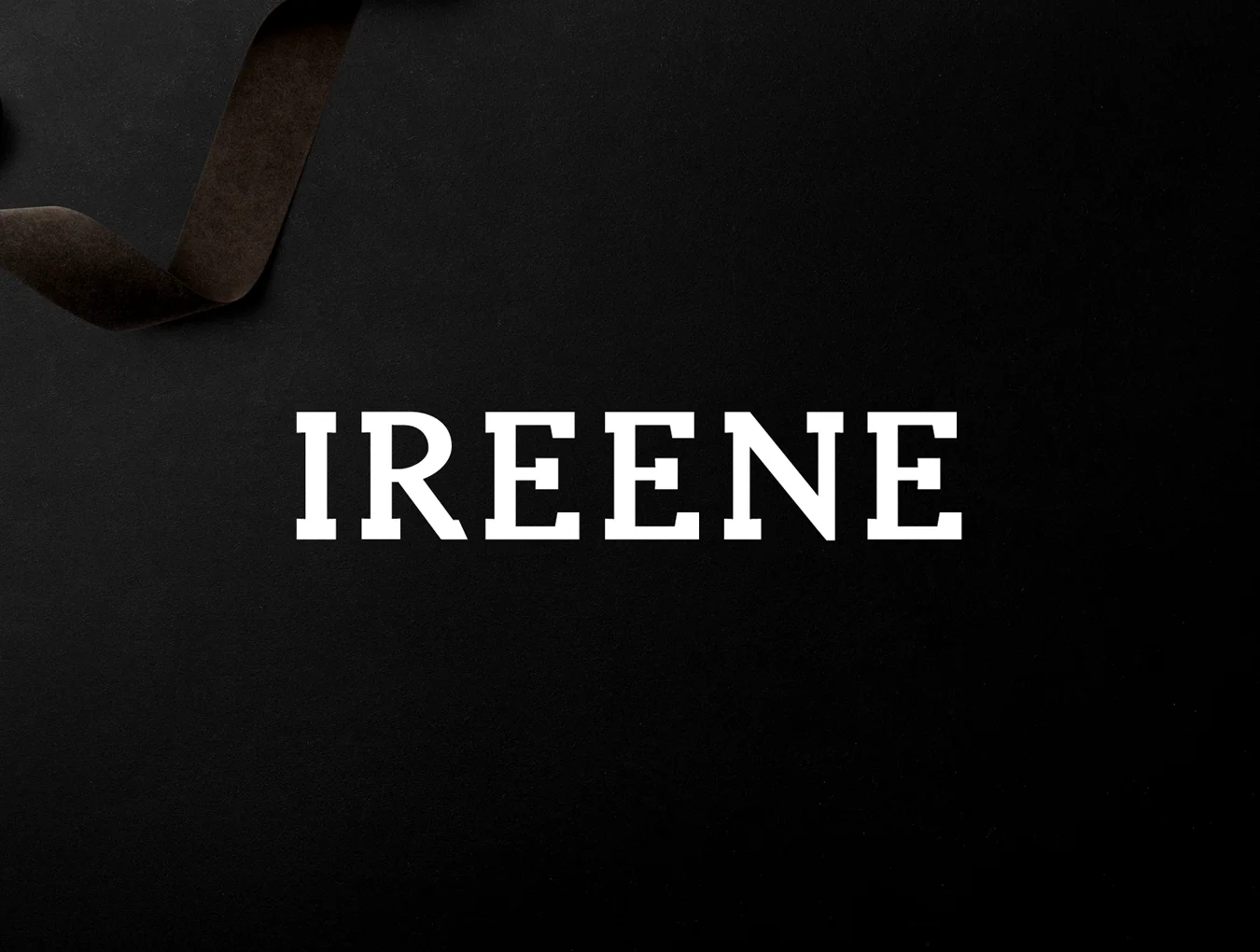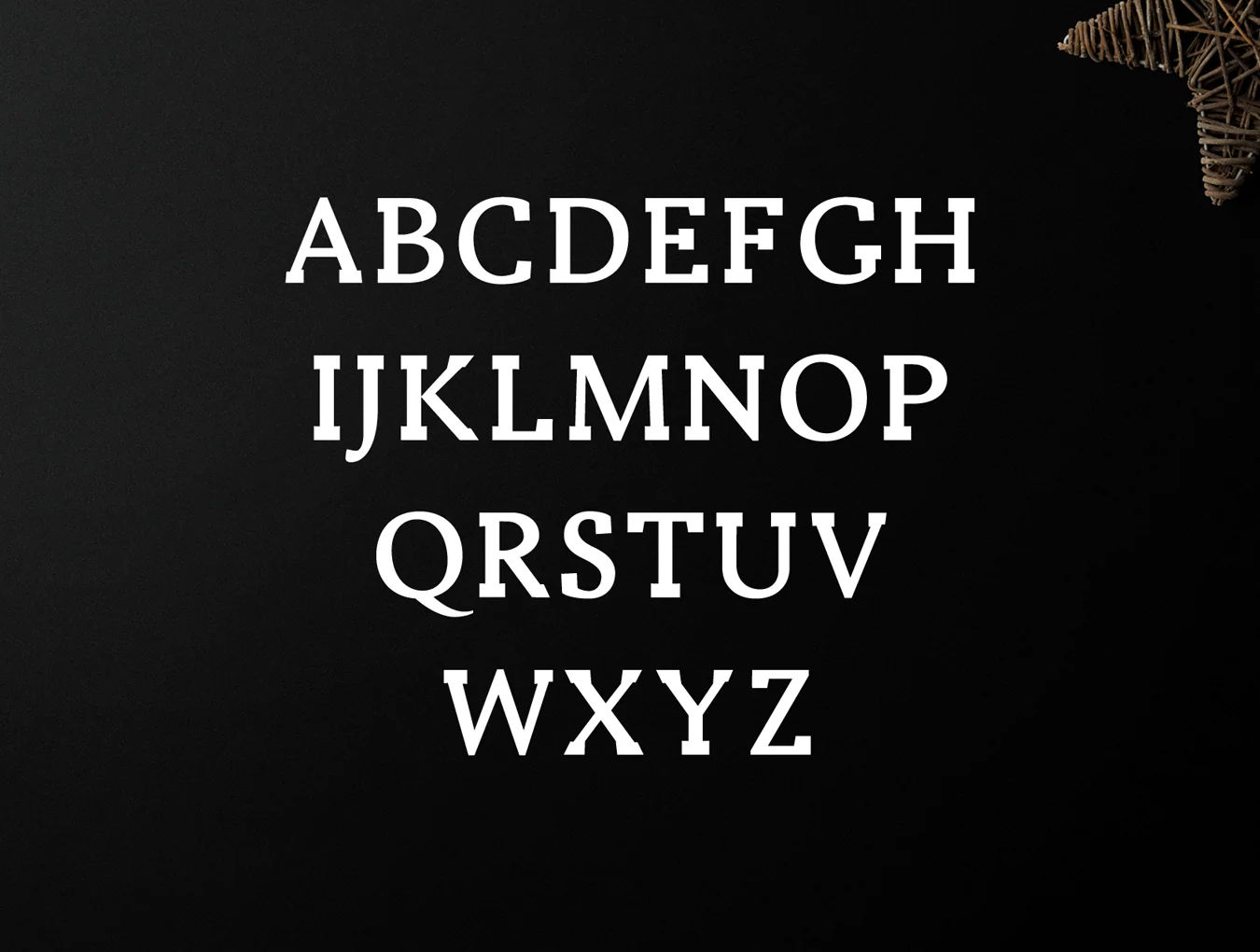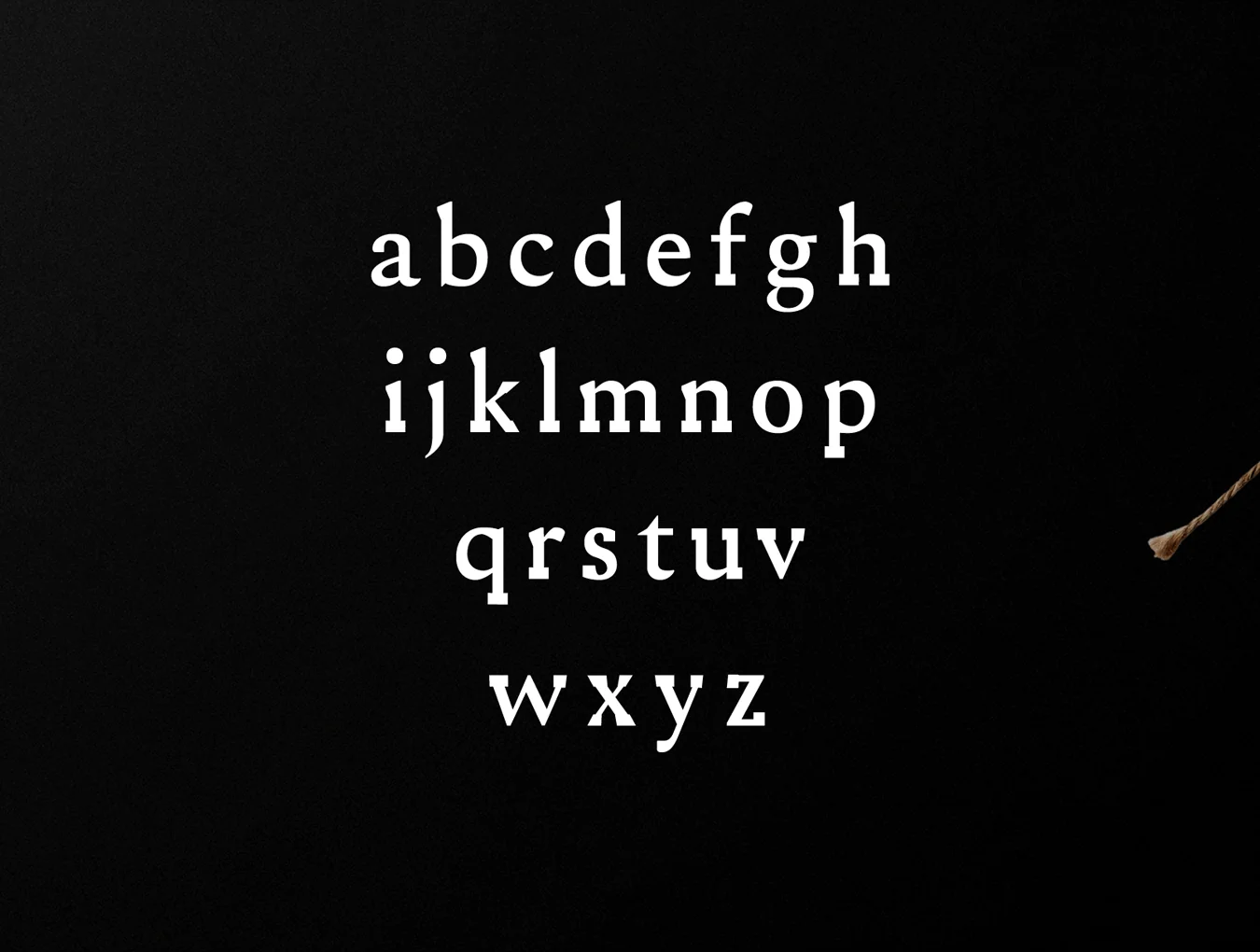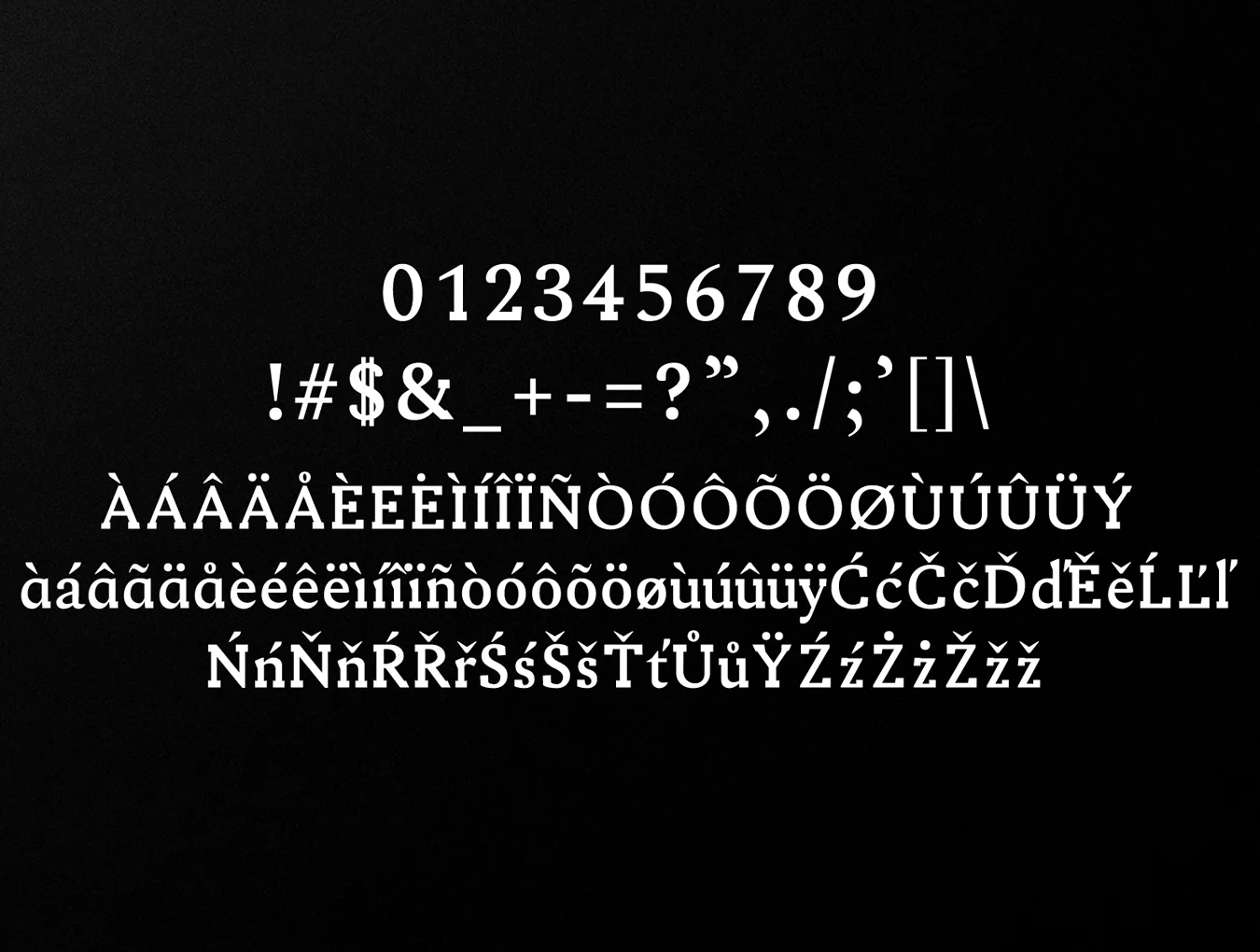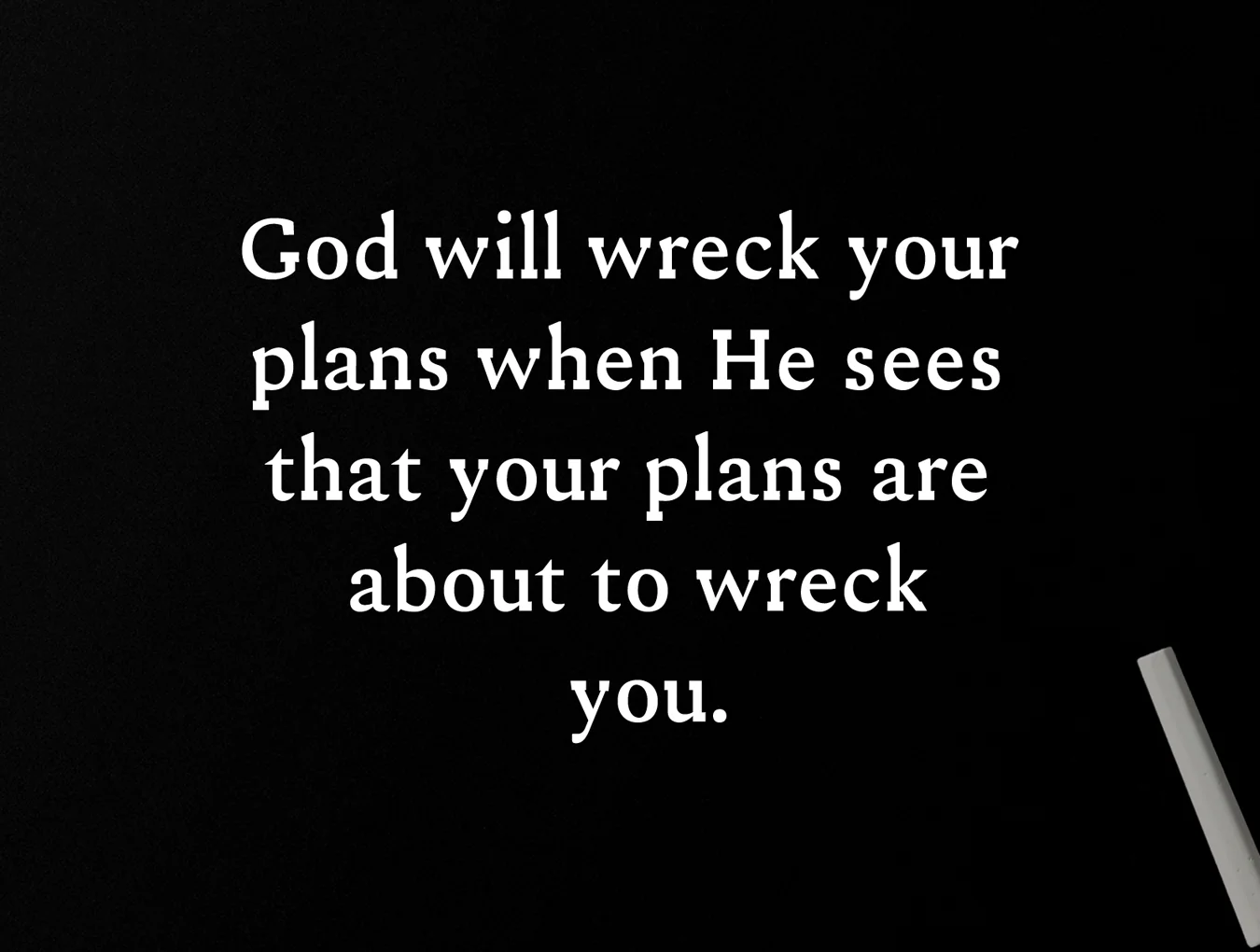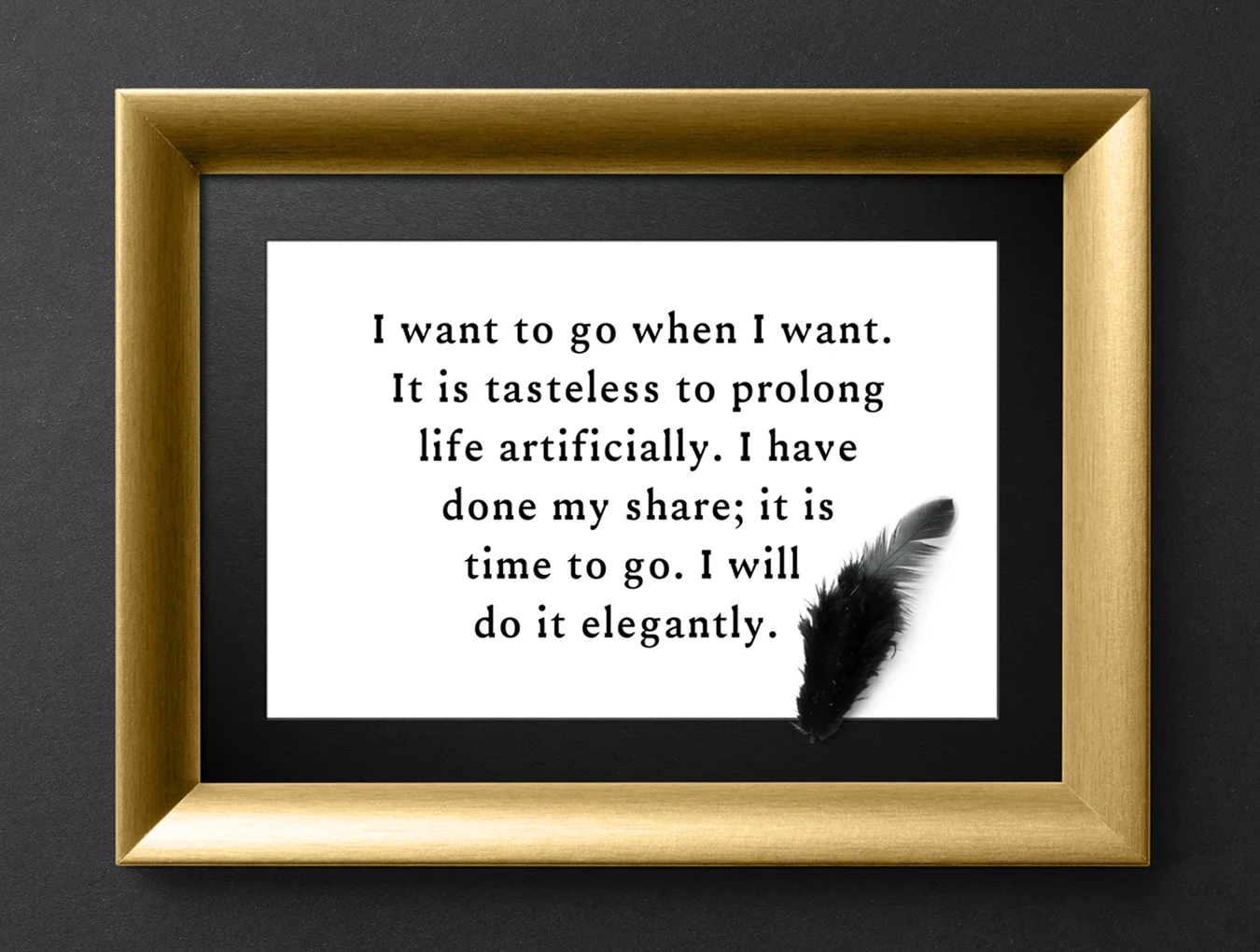
Ireene Serif Font Family
Ireene Serif 3 Typeface Family Bundle
Serif font style
242 characters included
Regular, Outline, and Bold styles
Ireene Serif 3 Font Family Pack delivers a distinctive contemporary serif style. Ideal for elegant logos, headlines, websites, and brand design, it shines in uppercase with generous letter spacing for a refined feel, while mixed case creates a classic, enduring look.